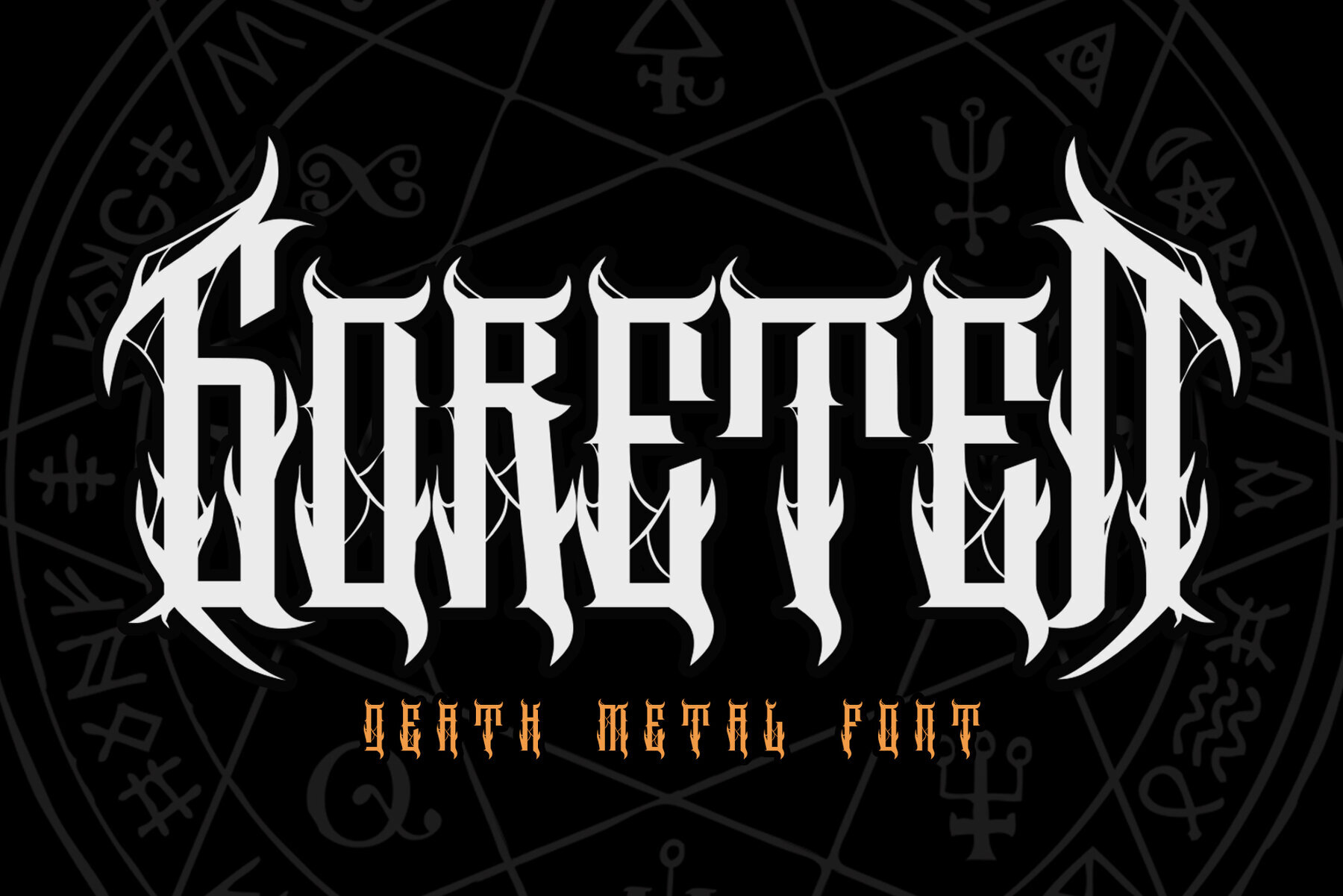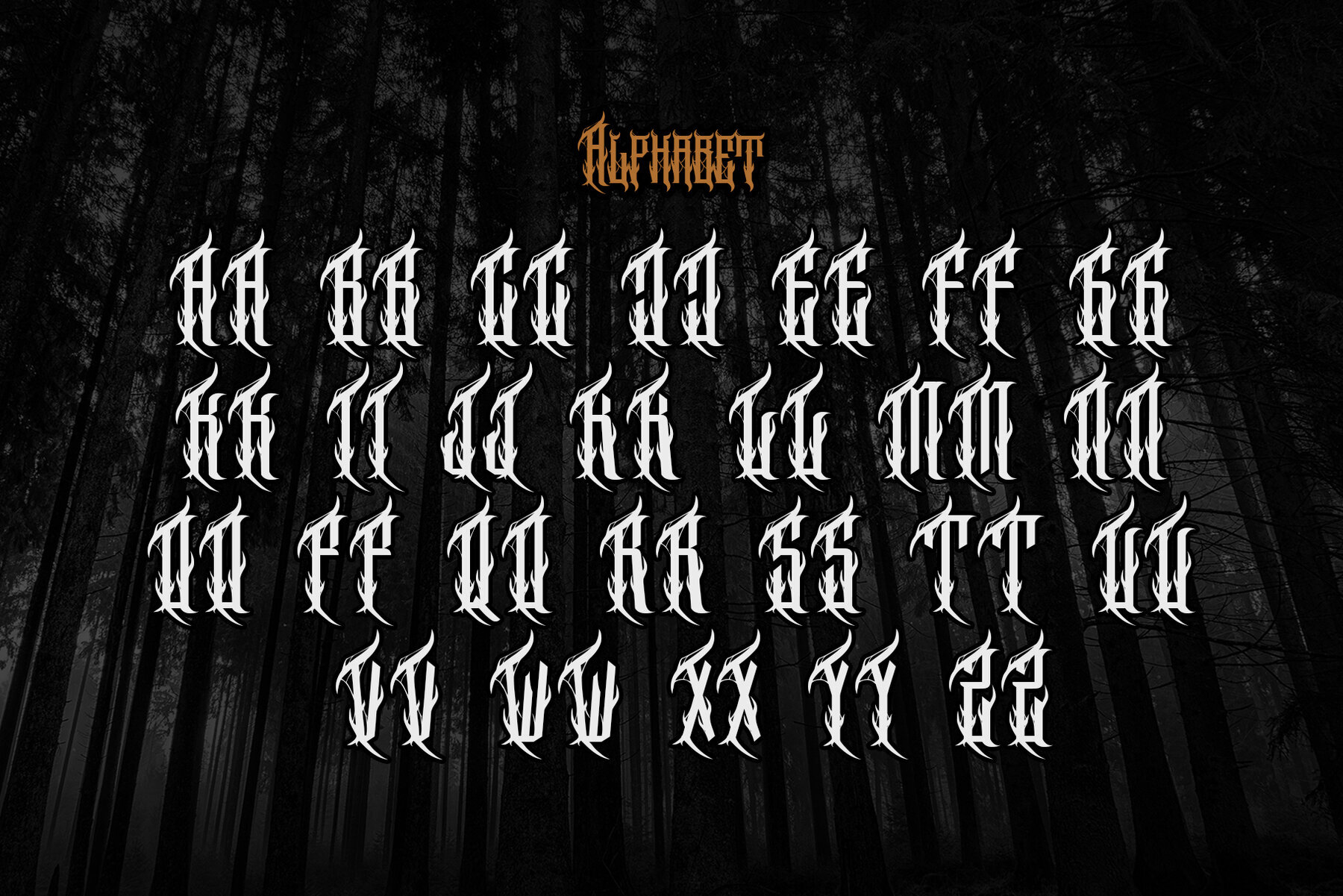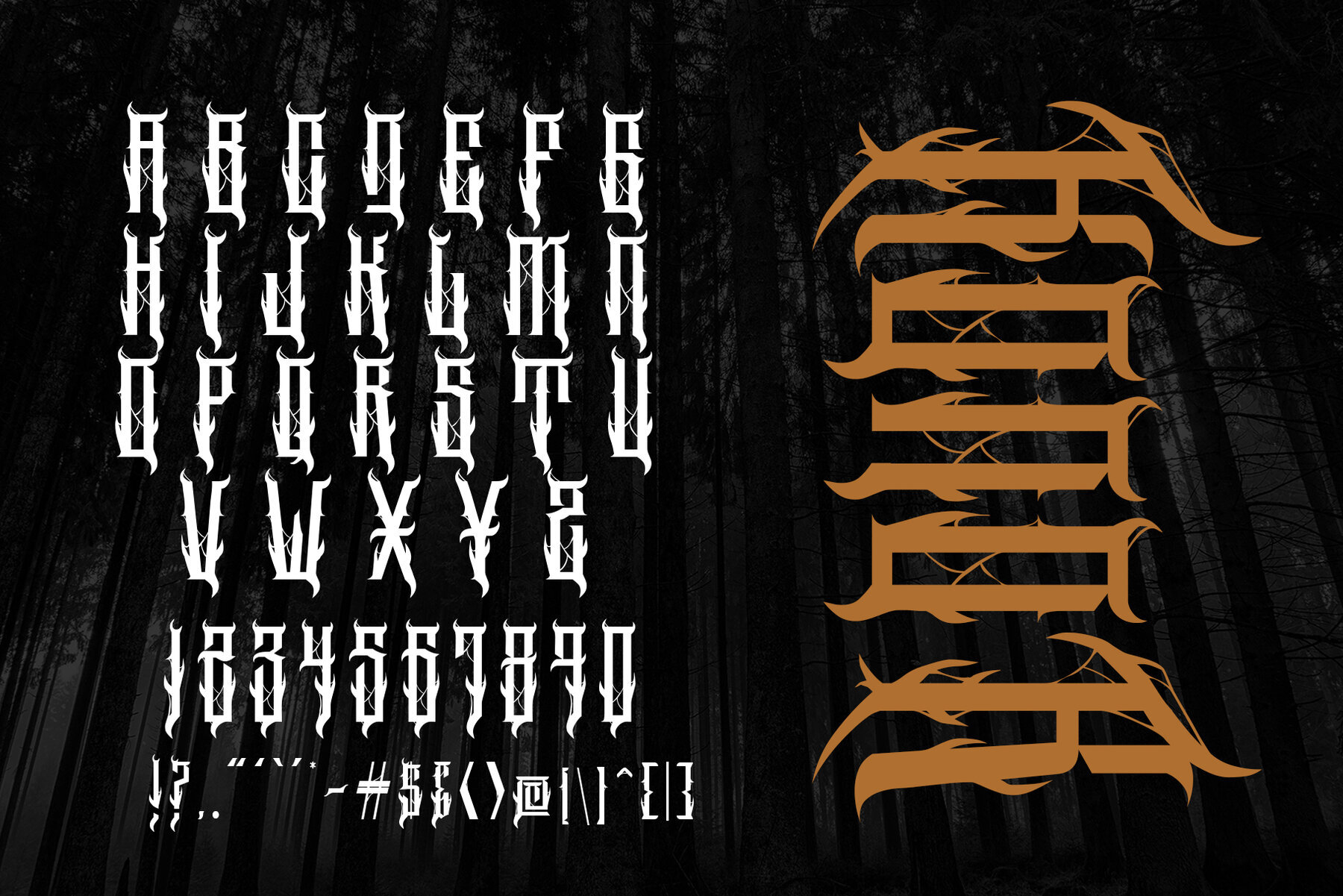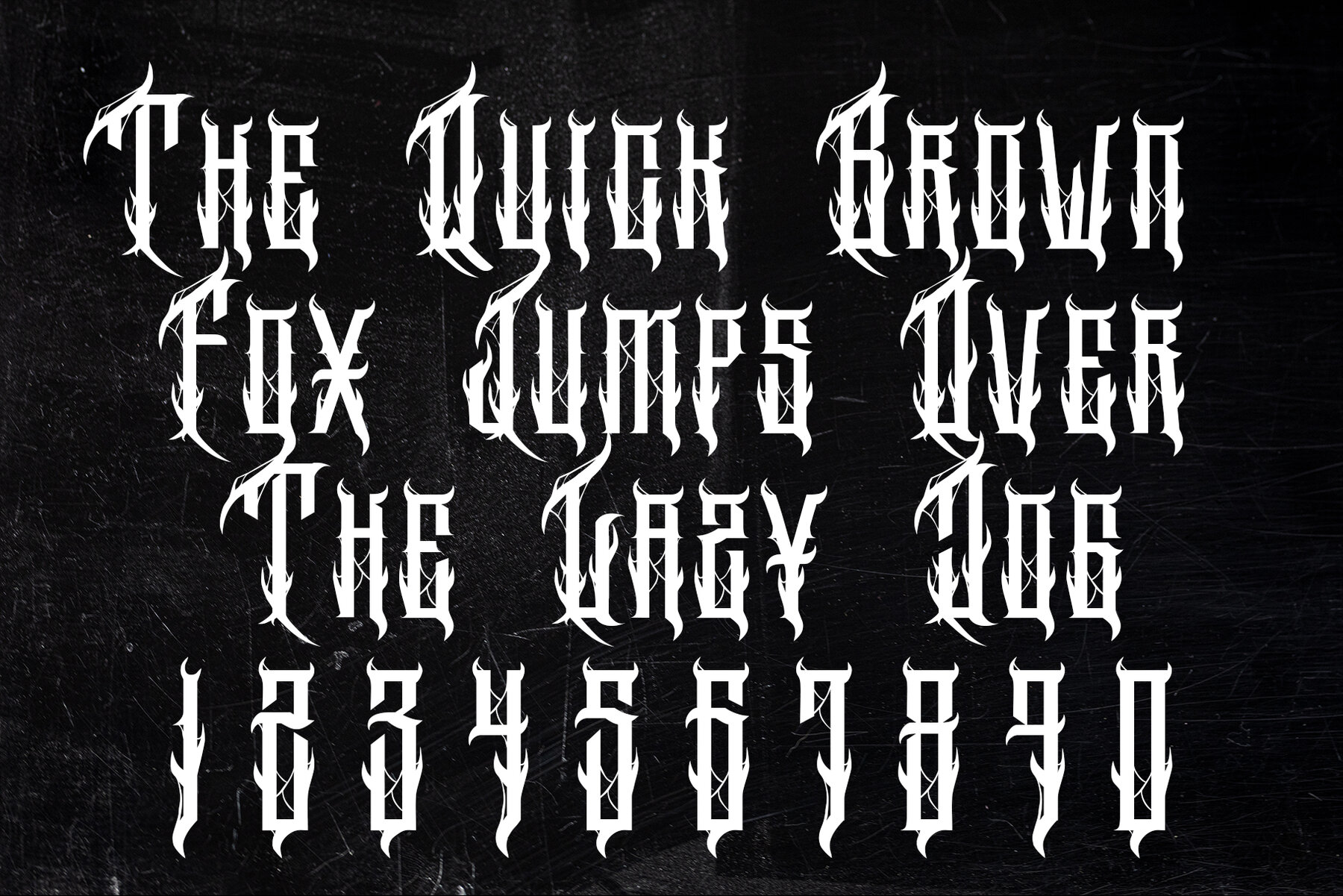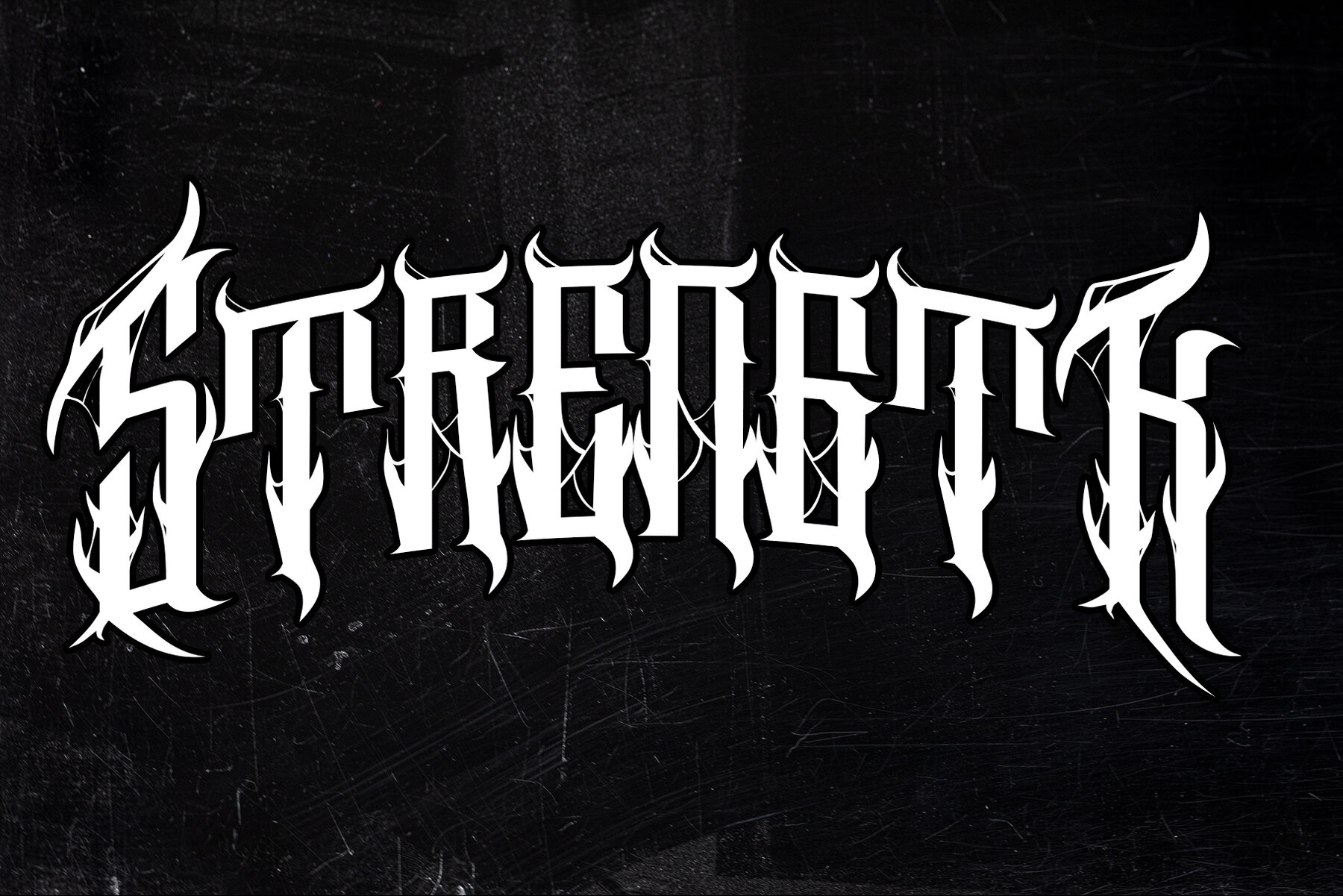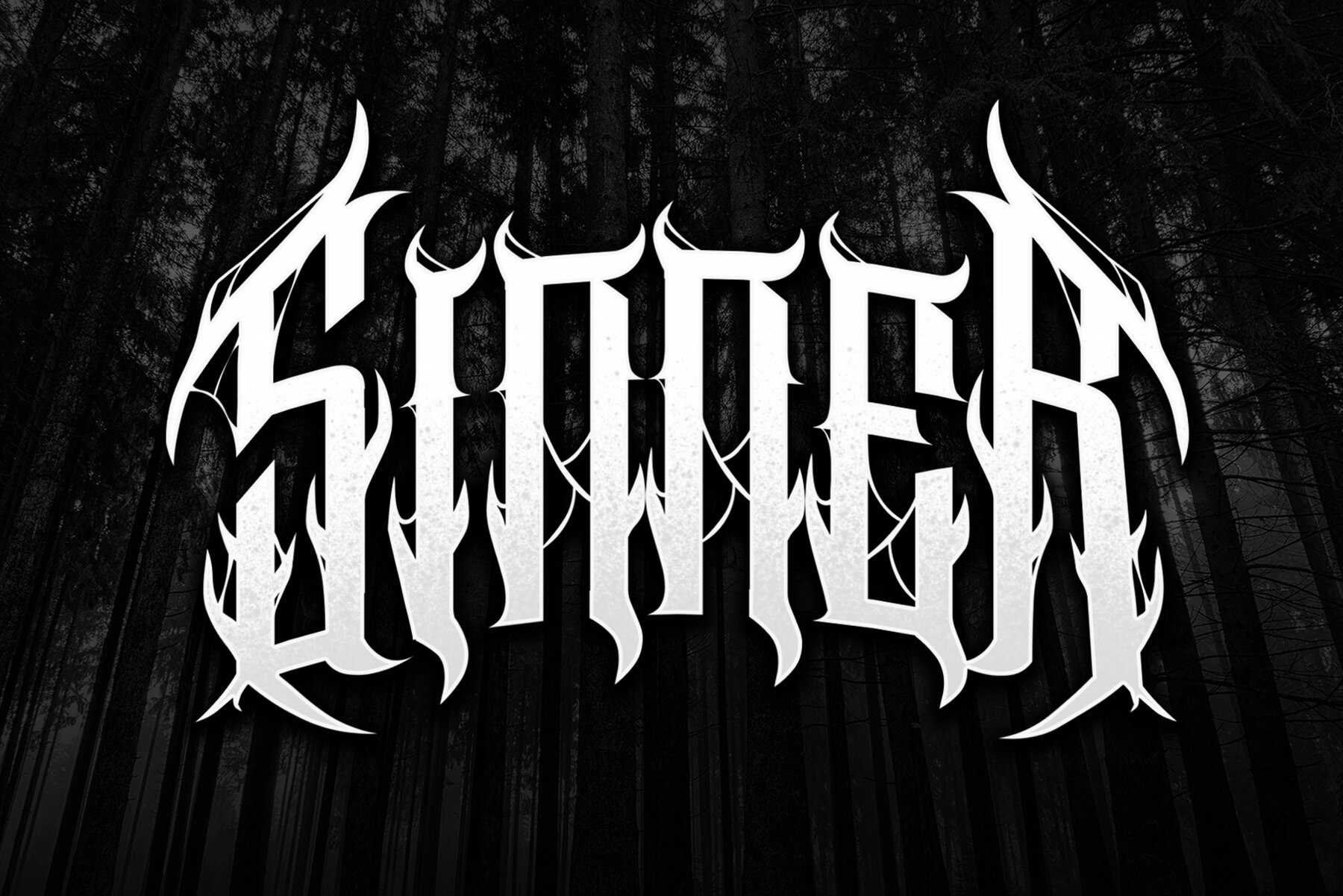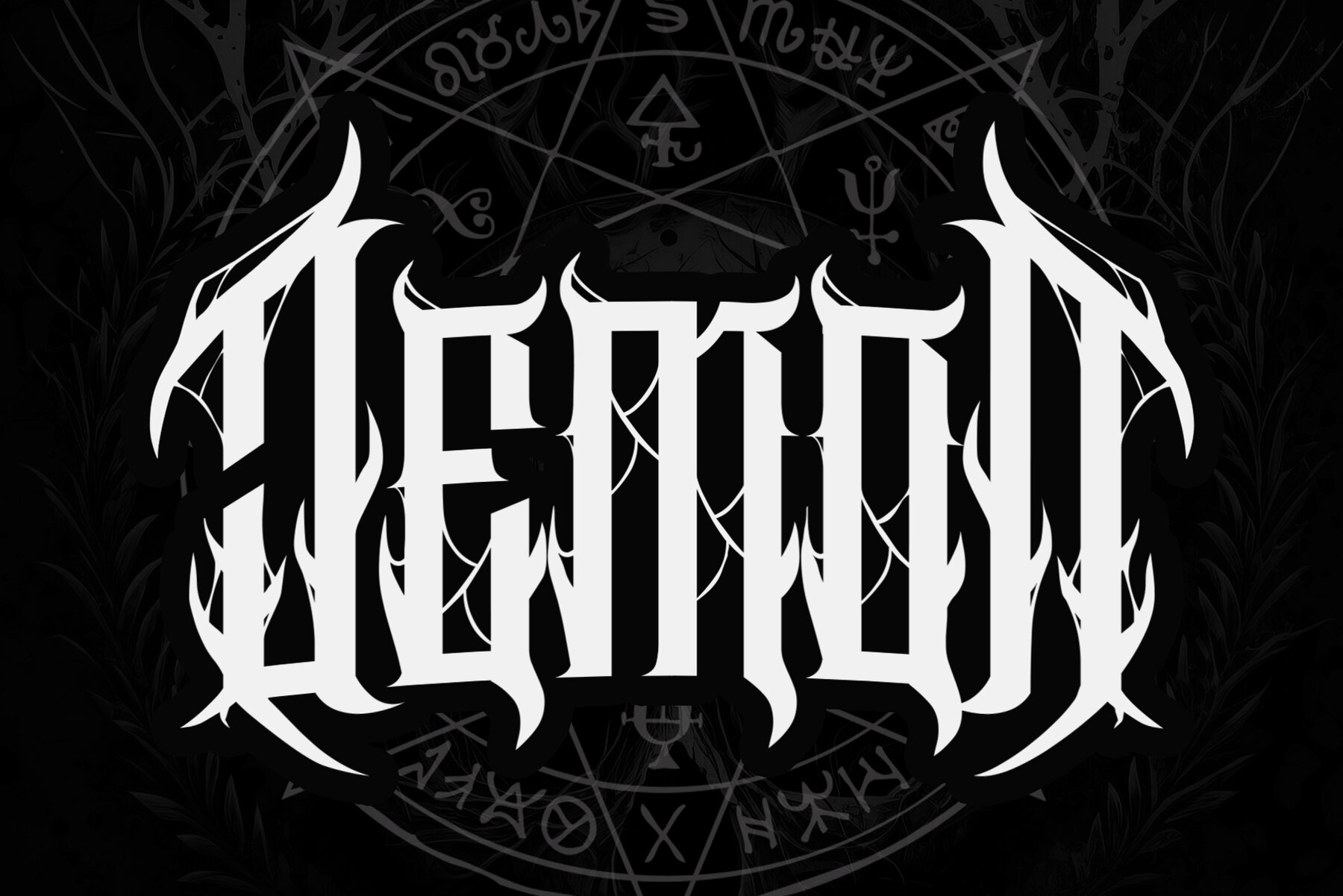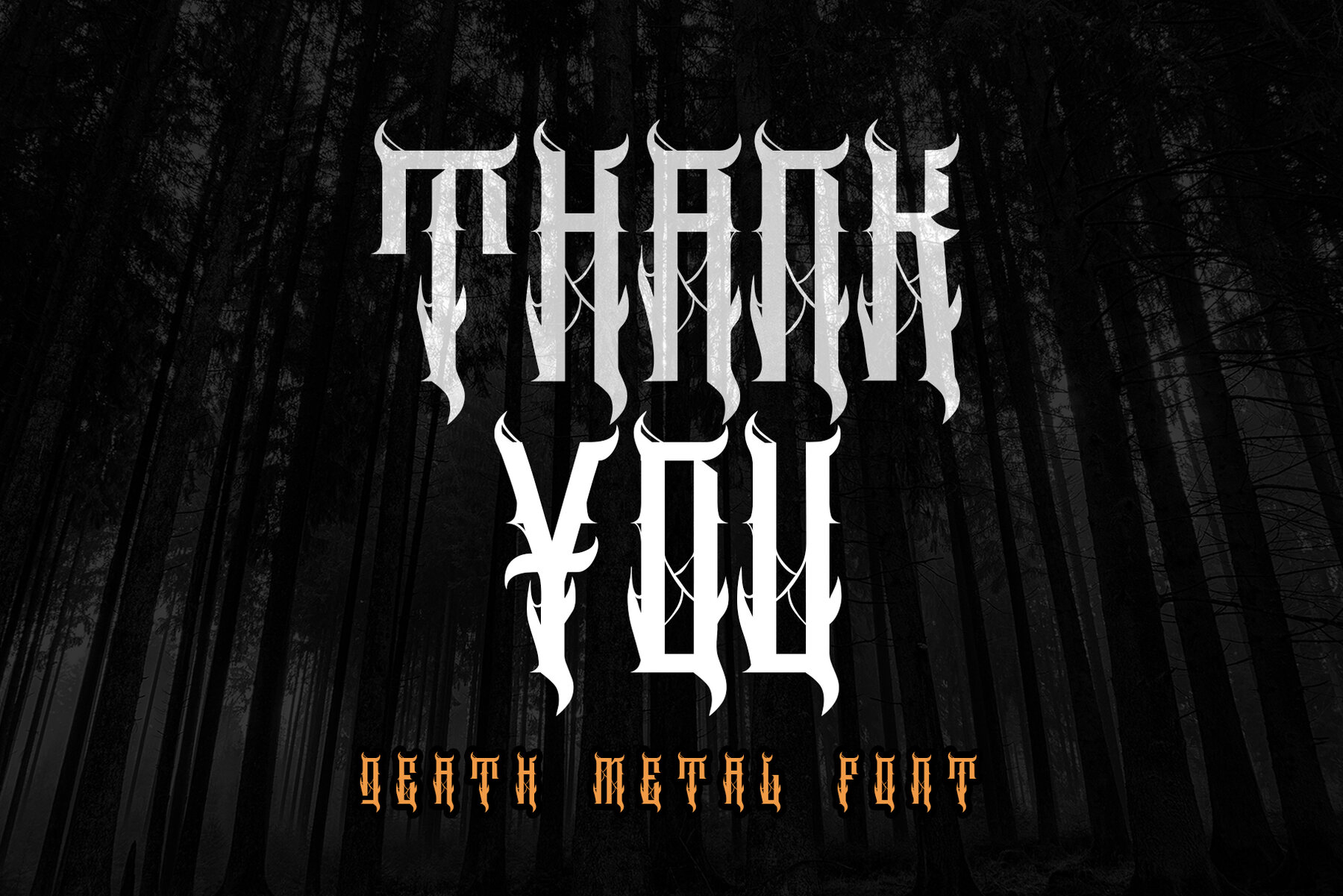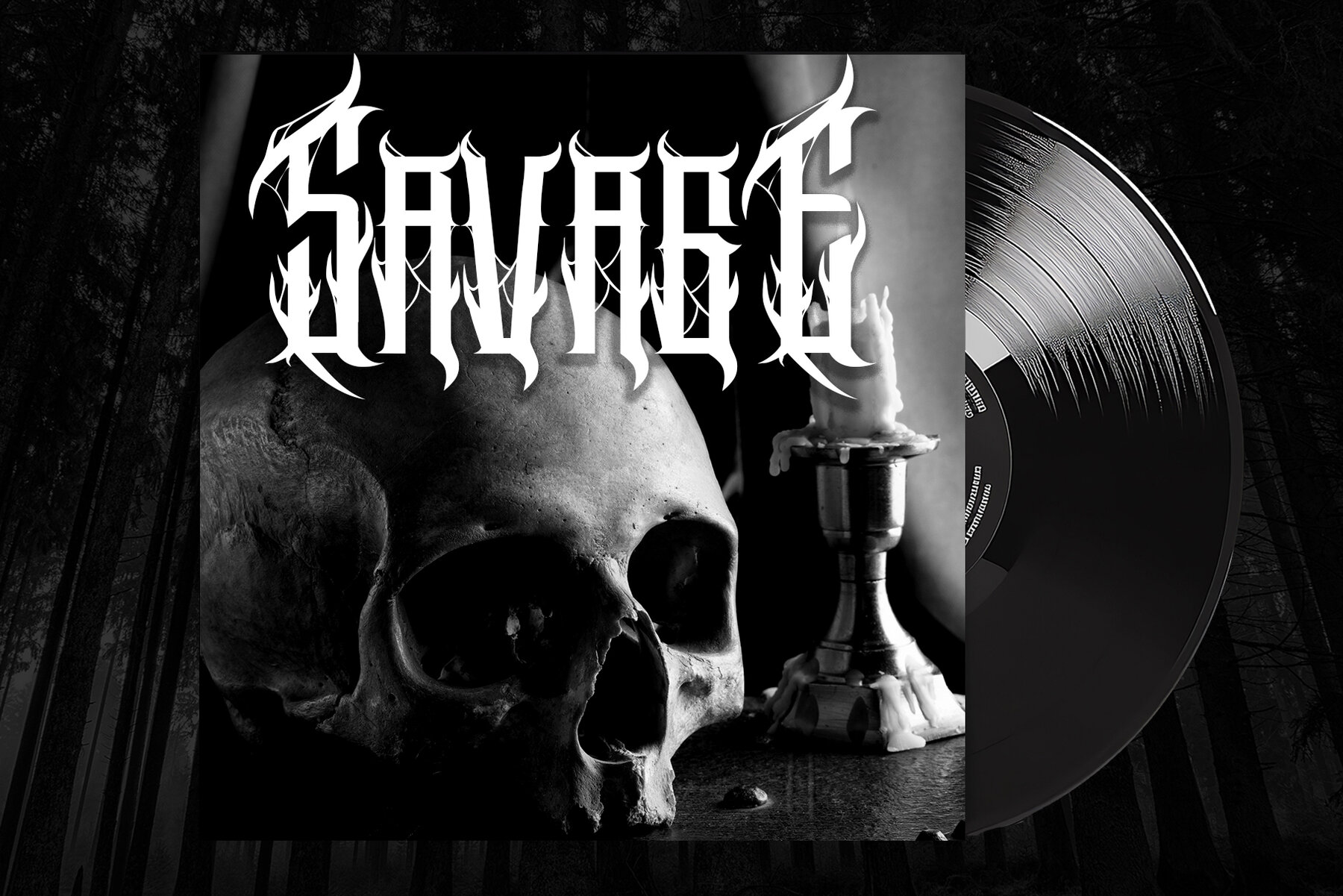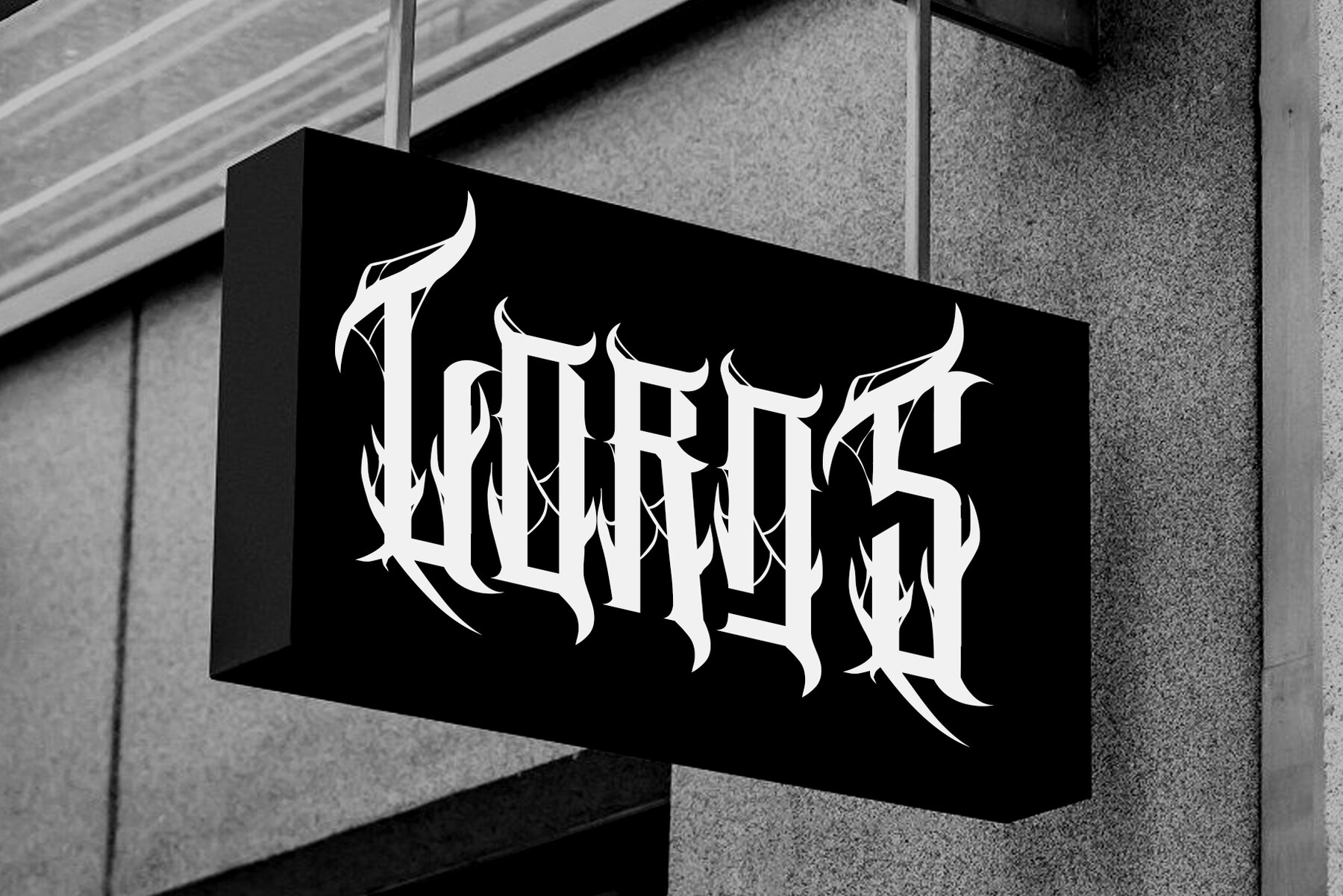
Goreten Font
GORETEN
Step into the world of dark, dramatic design with Goreten, the vintage metal horror font. Inspired by the haunting aesthetics of classic horror and heavy metal, this bold typeface is packed with sharp ornamental details and dark gothic energy. Whether you're crafting a logo for a metal band, designing a music poster, or working on retro gothic projects, Goreten delivers a striking visual impact every time. Embrace the intensity, mystery, and creativity of Goreten to bring your designs to life with unparalleled style.Goreten - Vintage Metal Horror Font